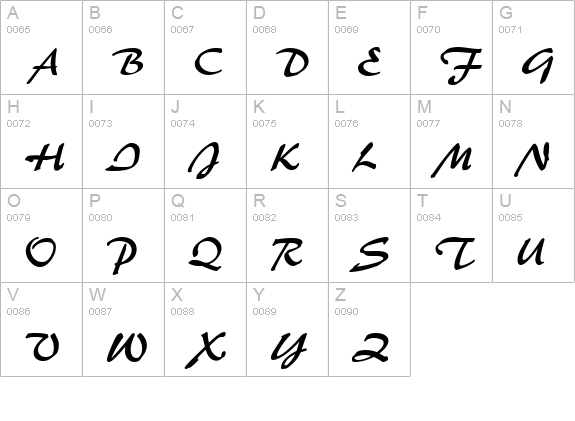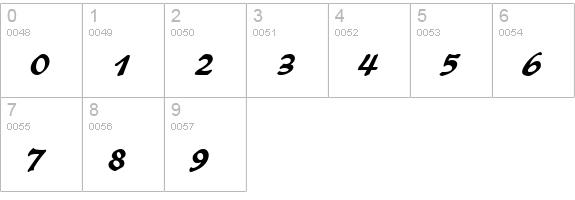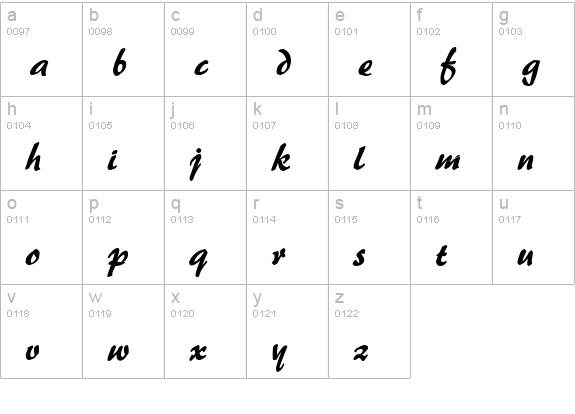
Palmer-Regular is the standard, neutral variant in the Palmer typeface family \xE2\x80\x94 well suited to general body text, paragraphs, and standard typographic work.
Palmer-Regular is a classic and elegant font that exudes sophistication and timeless charm. Its clean lines and graceful curves make it perfect for a wide range of design projects, from wedding invitations to business cards to branding materials. With its versatile and refined aesthetic, Palmer-Regular adds a touch of class to any design. What makes Palmer-Regular even more appealing is that it is completely free to download at FontsMarket.com. This means that you can elevate your designs without breaking the bank. So go ahead and give Palmer-Regular a try - you won't be disappointed with the beauty and quality it brings to your projects. Download it now and let your creativity shine!